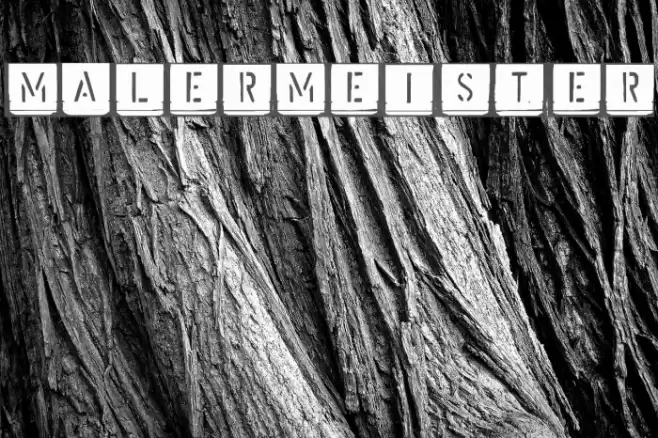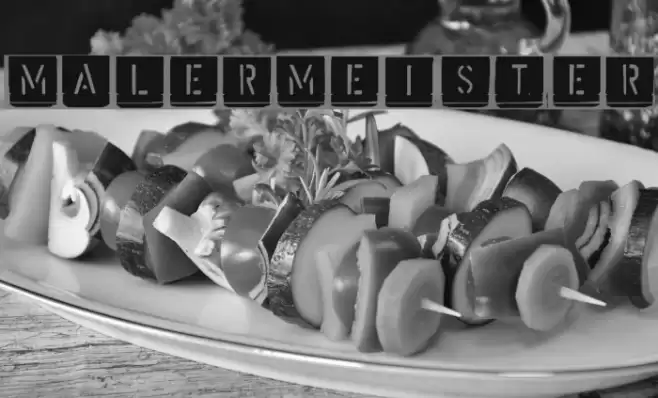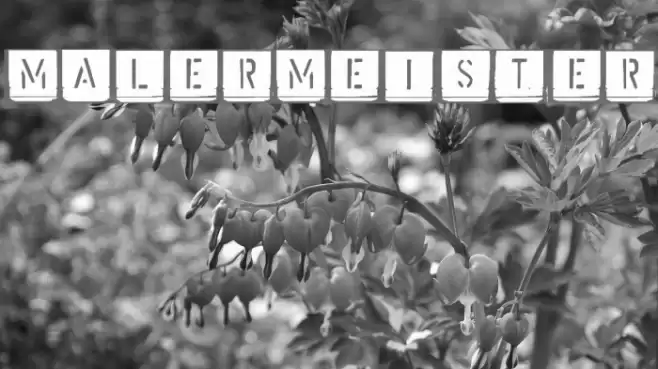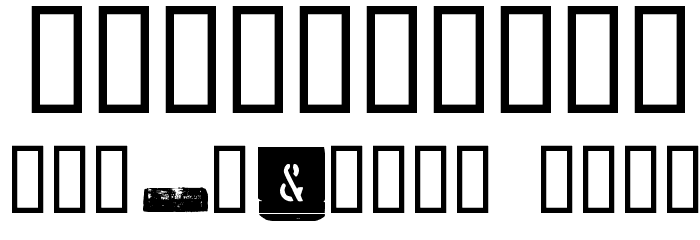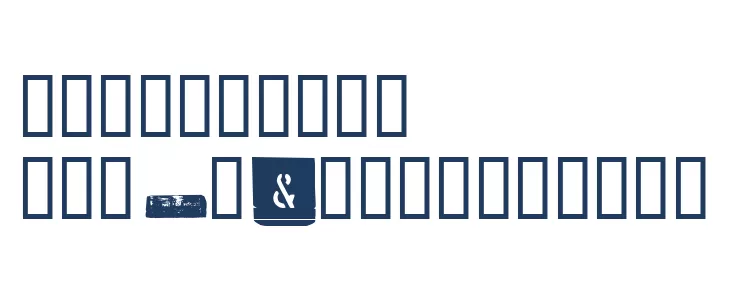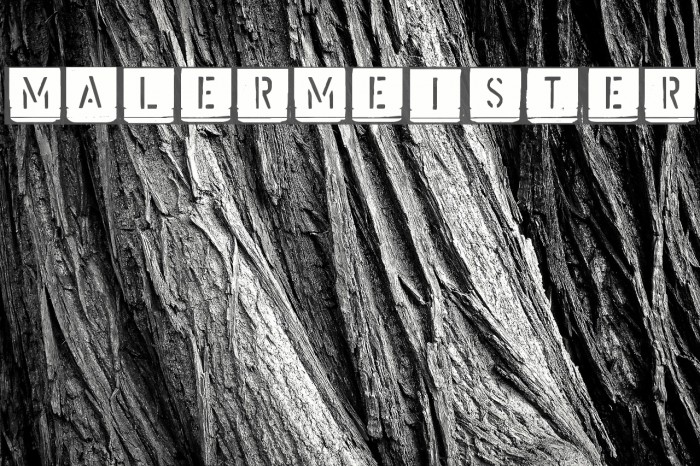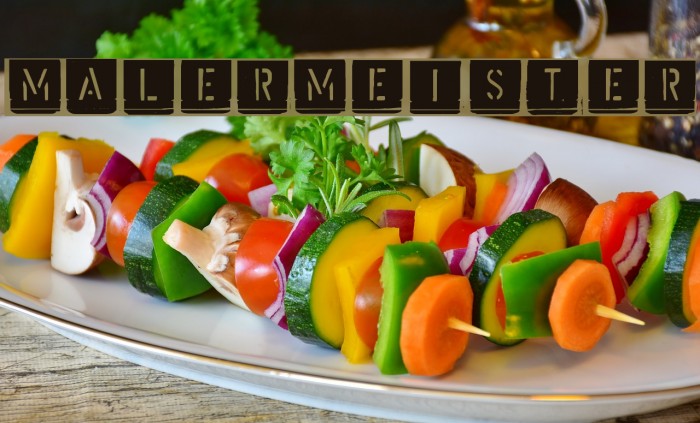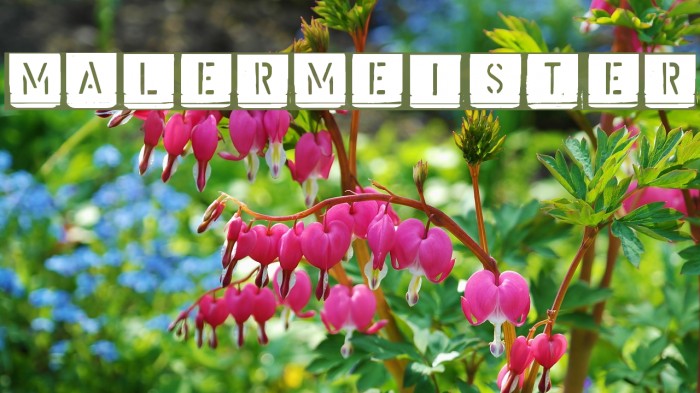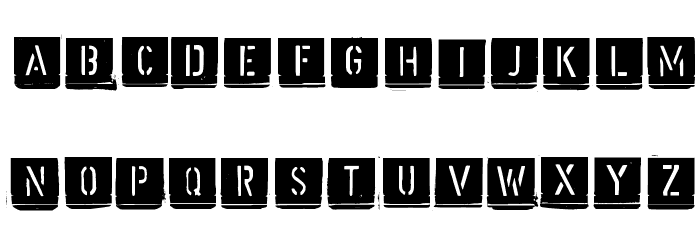
Malermeister Font
Malermeister Description
This font features a bold, distressed style with a stencil-like appearance. Each character is enclosed in a square, giving it a structured and uniform look. The letters have a rough, textured finish, reminiscent of vintage typewriter keys or industrial signage. The uppercase and lowercase letters are consistent in style, maintaining the distressed and blocky aesthetic. The numbers and special characters follow the same design, ensuring a cohesive look across all characters. This font is ideal for projects that require a rugged, retro feel.
A bold, distressed stencil font with a vintage industrial look from Stencil fonts.
- Proposed Projects: Ideal for posters, album covers, branding for vintage-themed products, or any design needing a rugged, industrial touch.
- Overall Style: Vintage